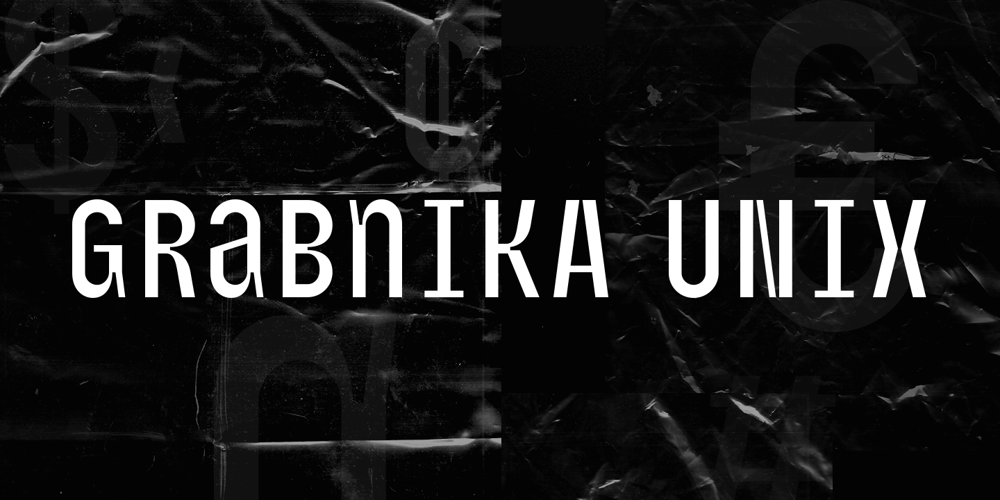
Grabnika Unix
Grabnika Unix font
Grabnika Unix Font Family was designed by Bogdan Balatchi and published by DePlictis Types. Grabnika Unix contains 1 styles and family package options. Grabnika Unix is a unicase style typeface with a straight and a bit tall look and it has a residual influence of monospaced fonts. One of the major characteristics of this typeface are those sharp cuted ears and joints that appears repeating at some of the letters and gives him a distinctive personality and a minimalist design approach on other group of letters that creates an alternative interesting fill of the spaces. It is suitable for signage purpose and headlines or relatively short body texts and also for logo design and branding. It is a loud and fresh display that could give a certain distinctive and young personality to your designs. As a fun fact, the name of this font comes from the romanian word “grabnic” that means “fast” and I developed this font by chance as a custom lettering for a logo design project, so I saw it proper as an alternative in the actual wide font markets and I decide to finishing it as a multilingual support typeface. Enjoy!